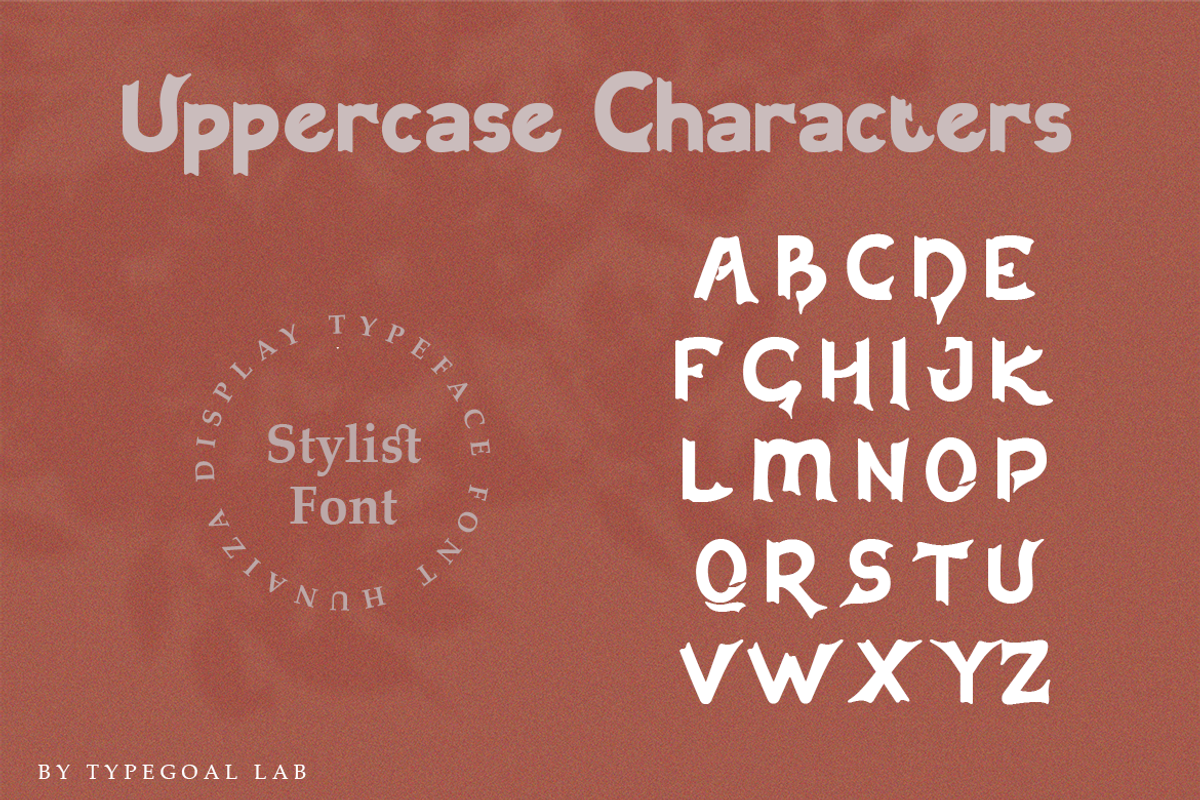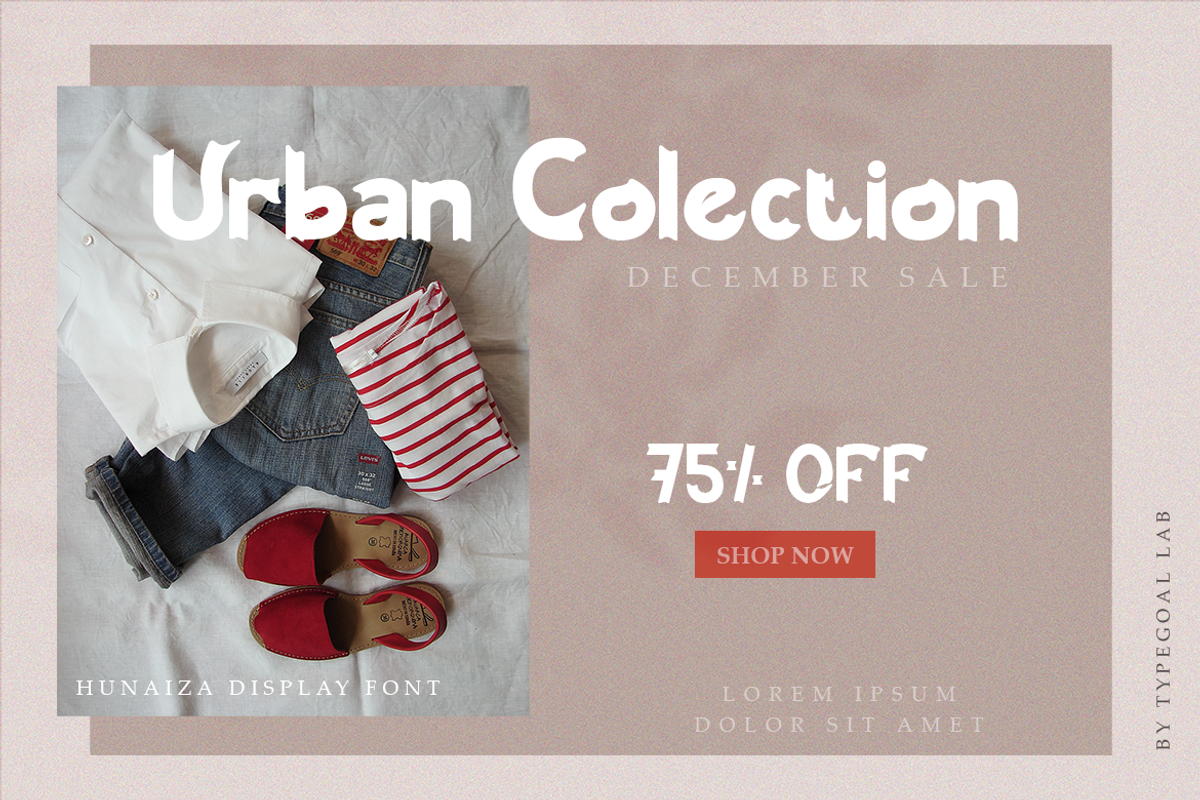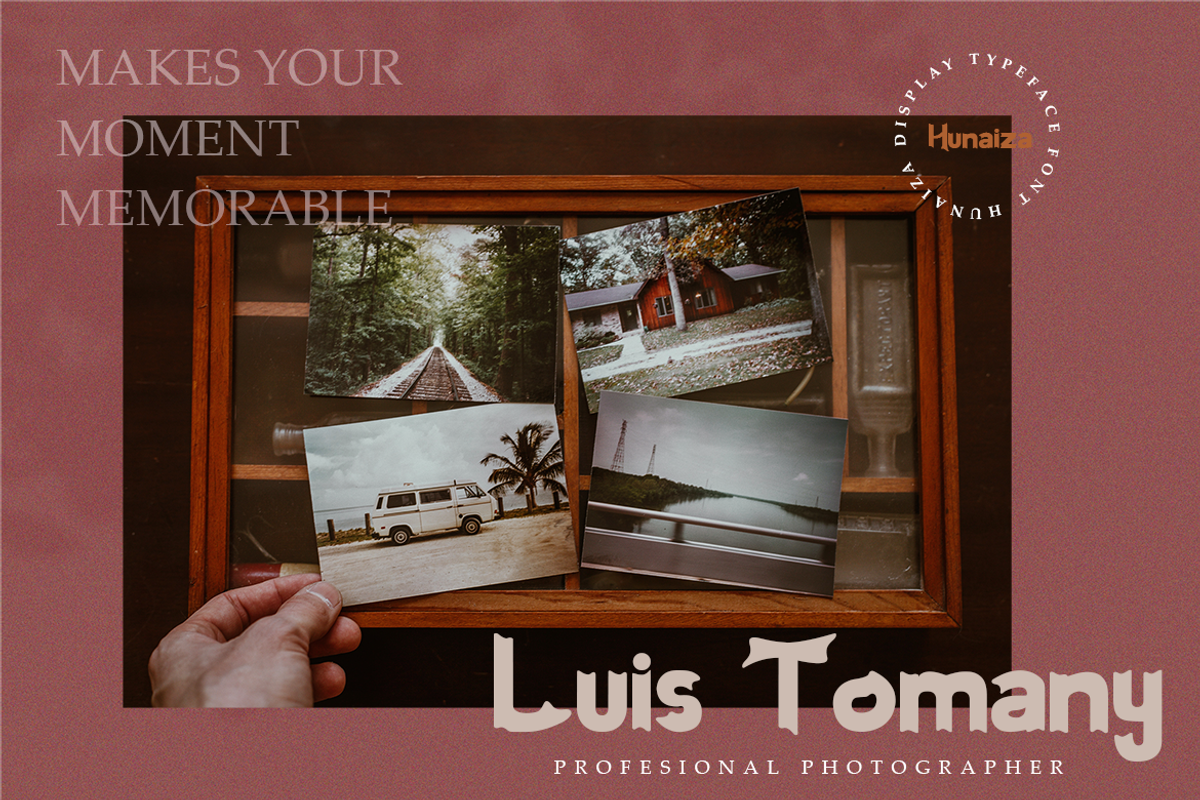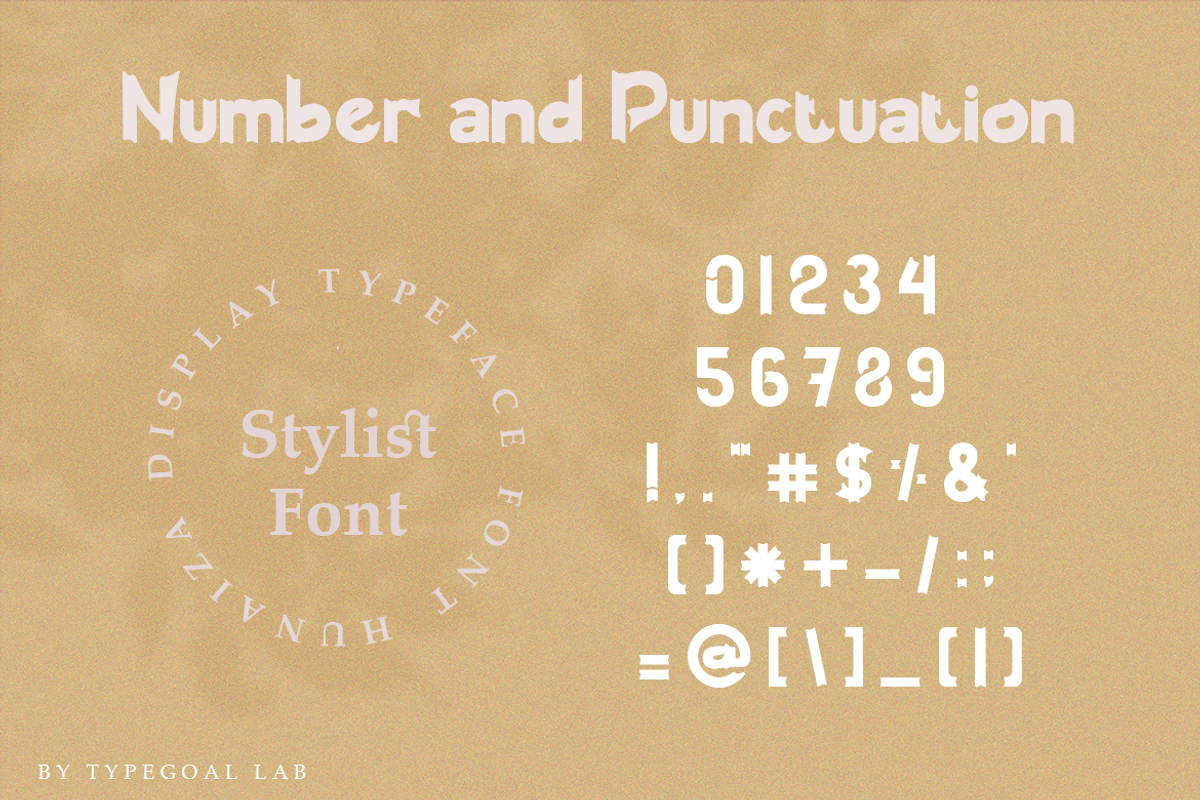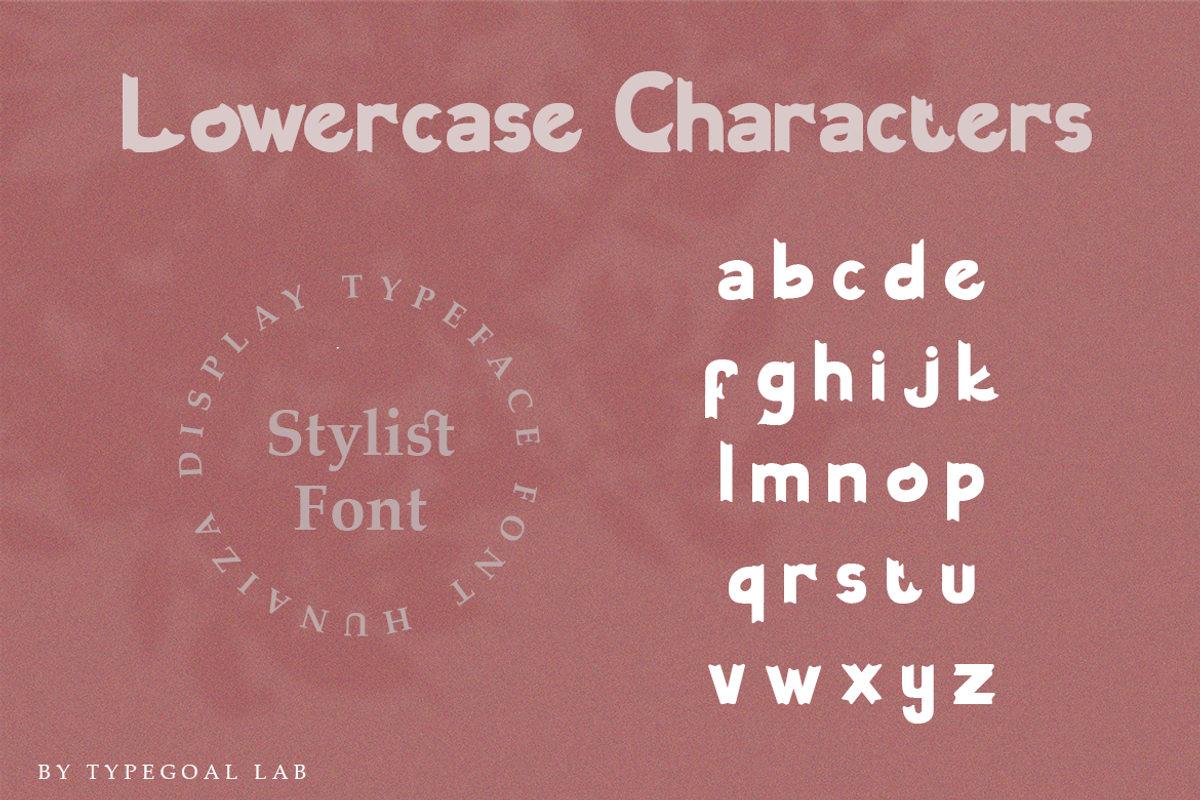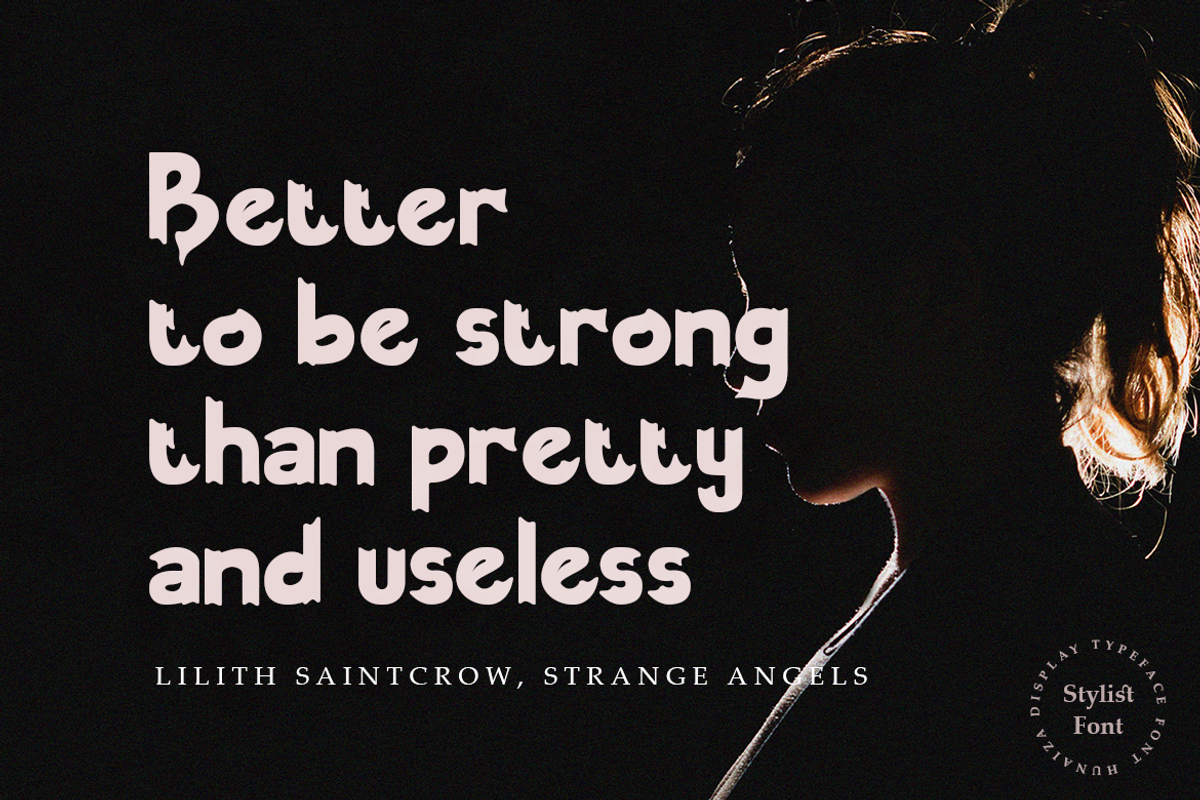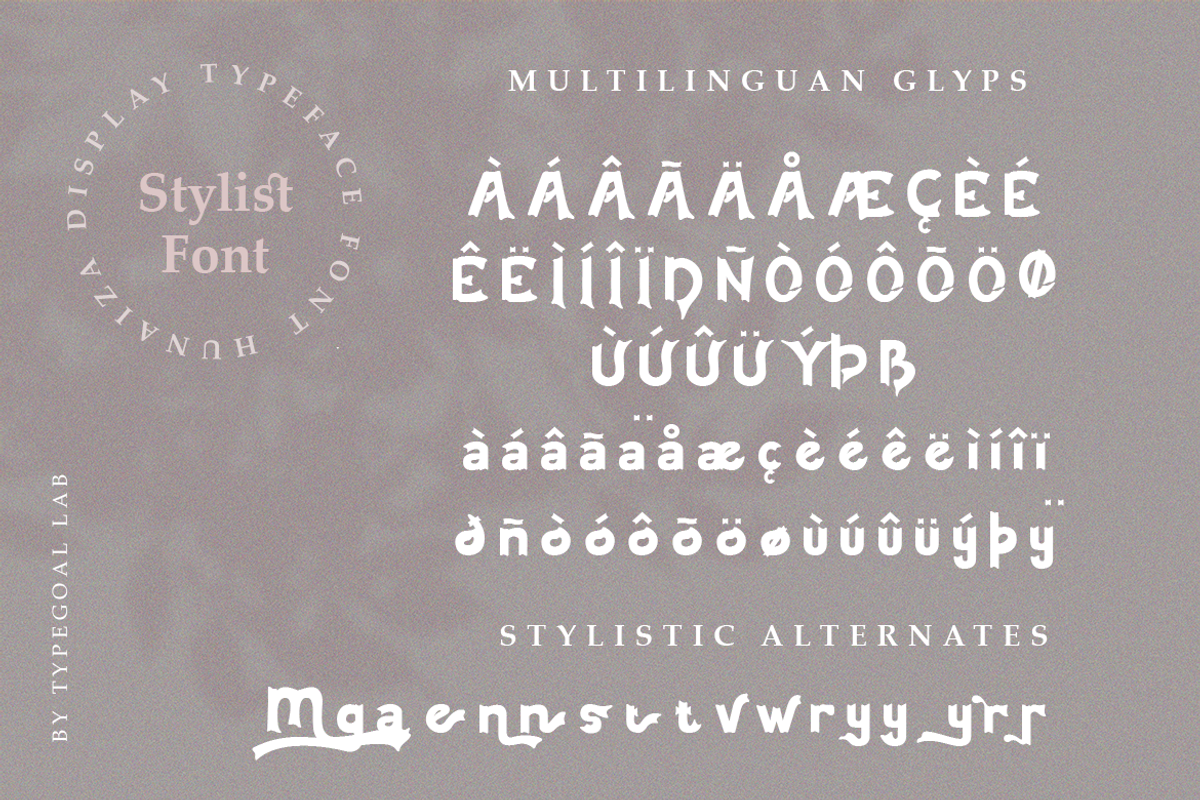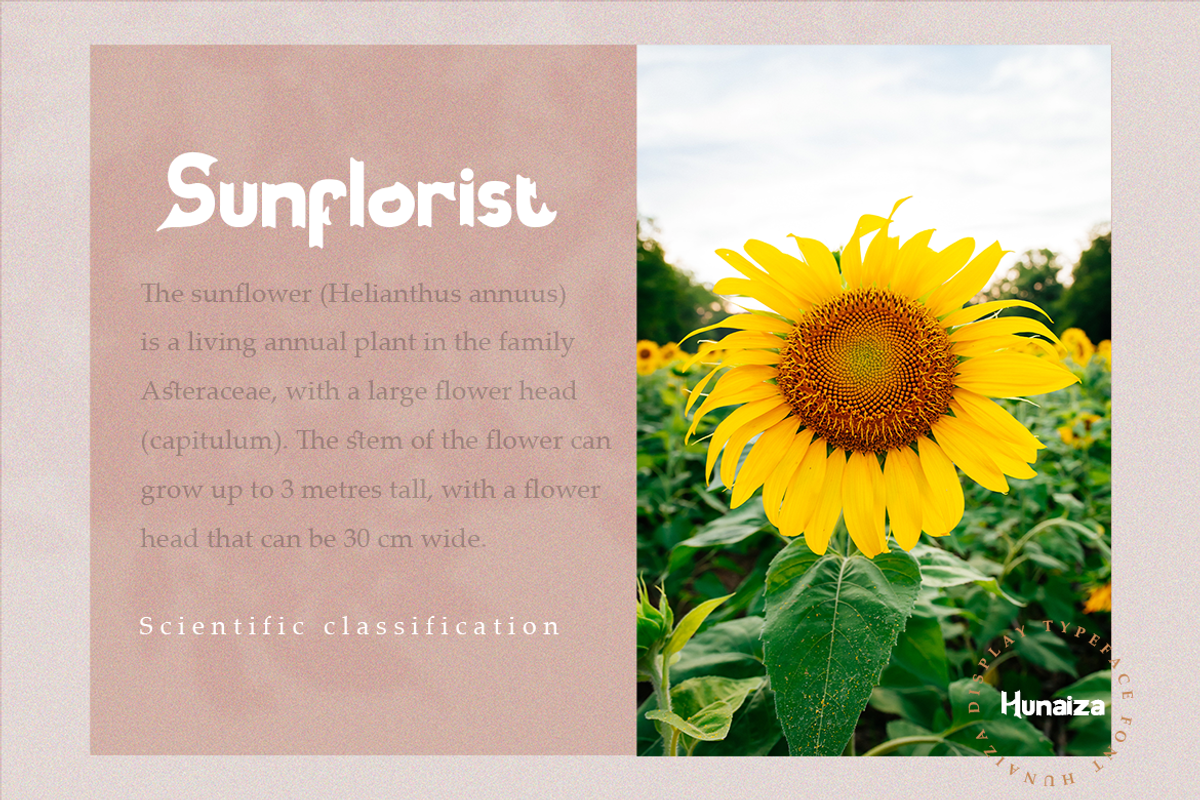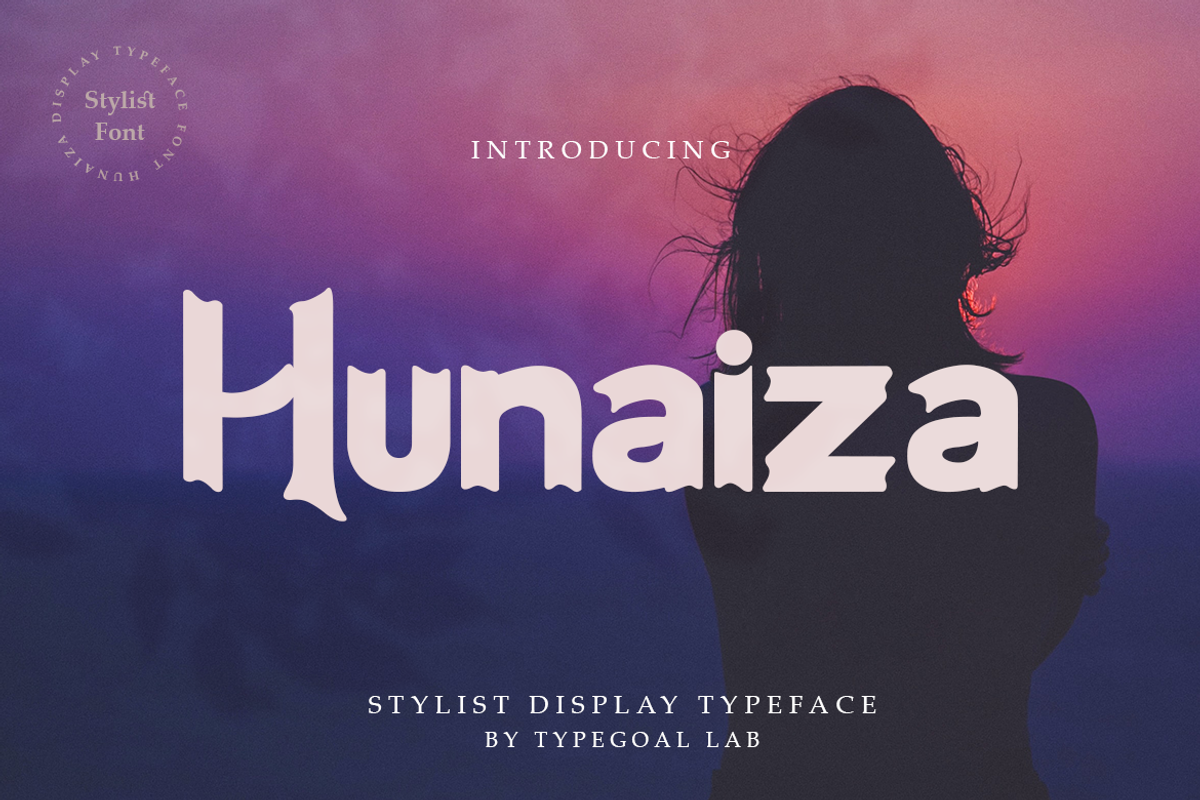
Hunaiza
Hunaiza is fun display children font that perfect for kindergarten and children event.
Hunaiza is perfect for branding projects, logo, wedding designs, social media posts, advertisements, product packaging, product designs, label, photography, watermark, invitation, stationery and any projects that need handwriting taste.